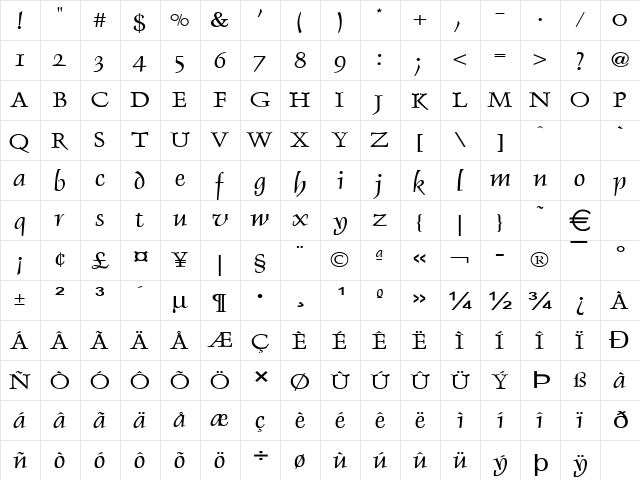
DolphinWide Normal
Design Context for DolphinWide Typeface
DolphinWide takes a measured approach to typography — its balanced proportions and neutral character make it a reliable workhorse for both digital and print work.